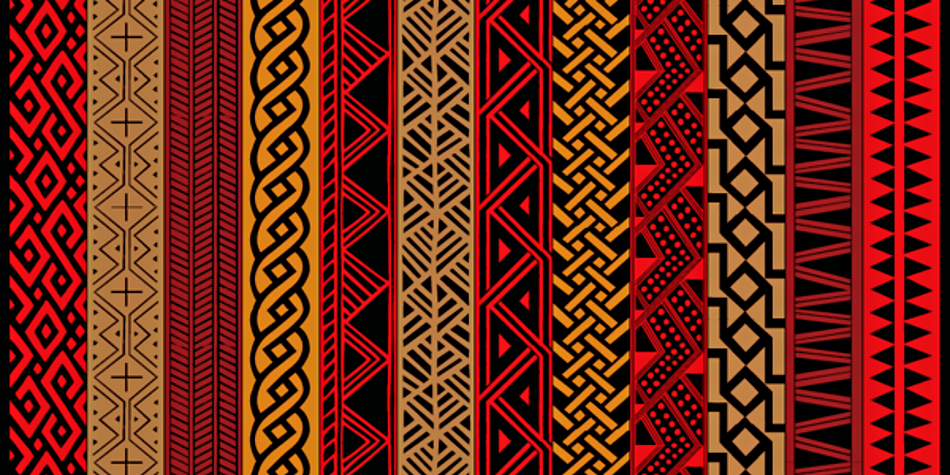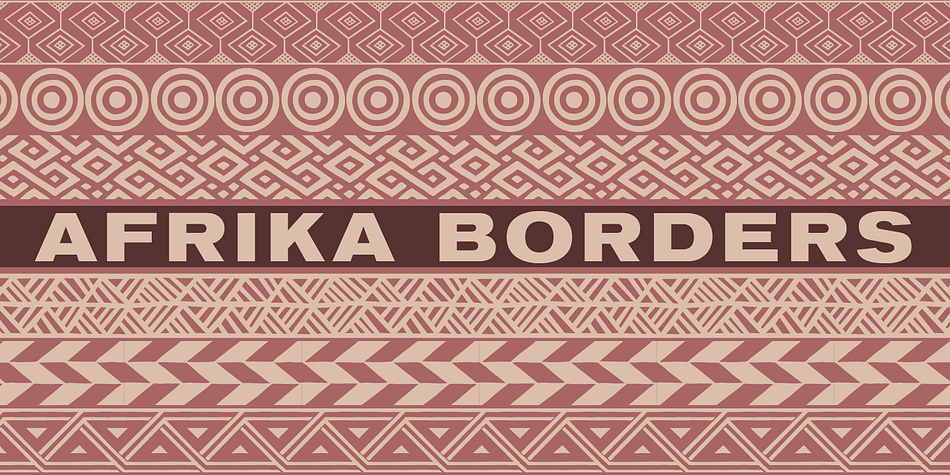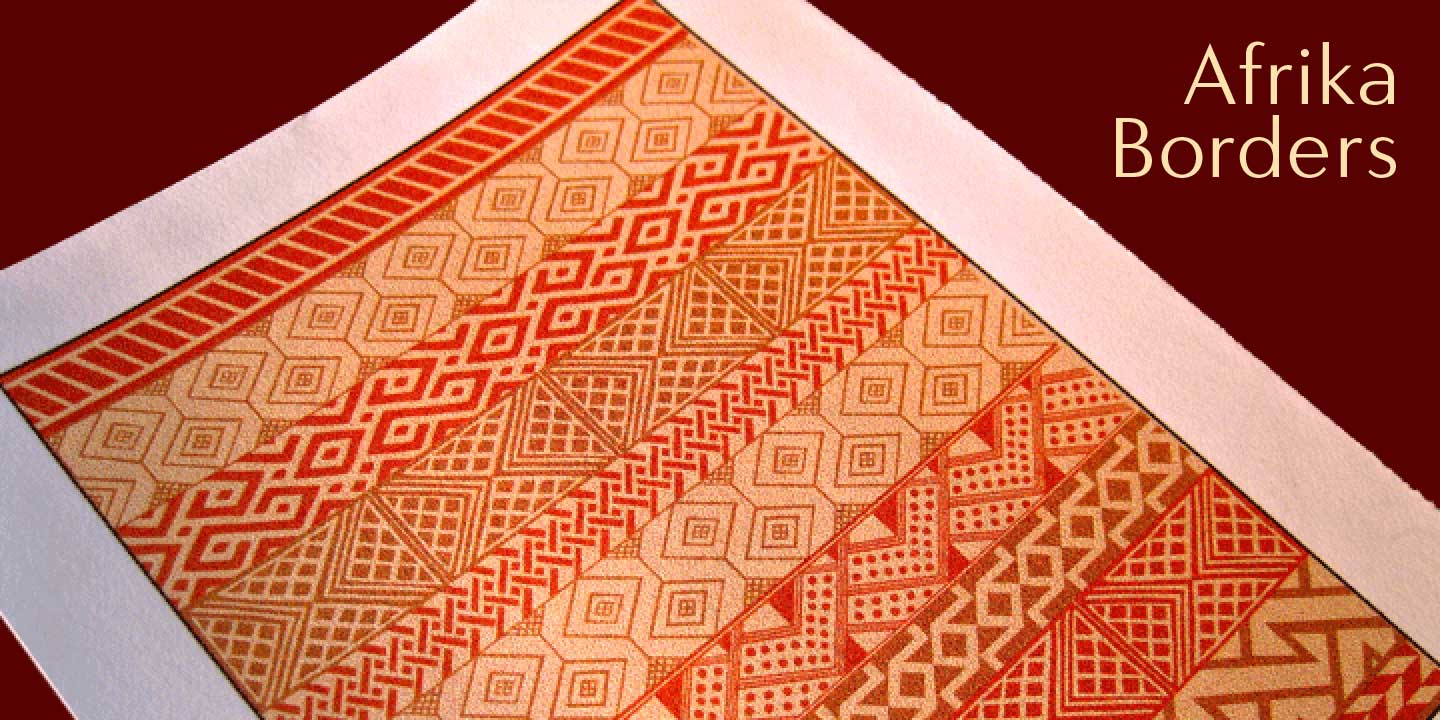
Afrika Borders is a dingbat font family. This typeface has two styles and was published by CastleType.
Afrika Borders™ and Afrika Motifs™ are delightful collections of over 50 patterns and designs each, based on geometric motifs from various African tribes. Use for stationery, greeting cards, etc.